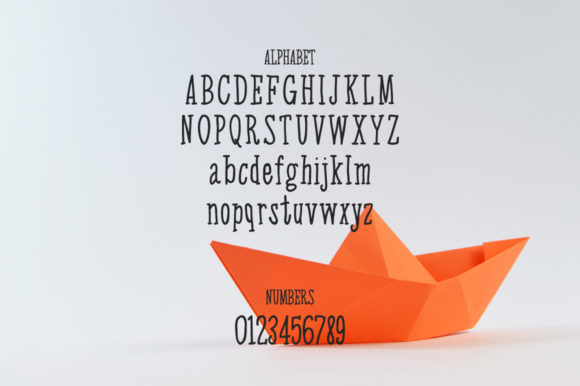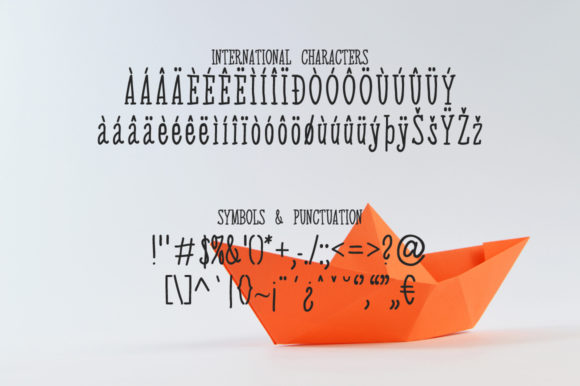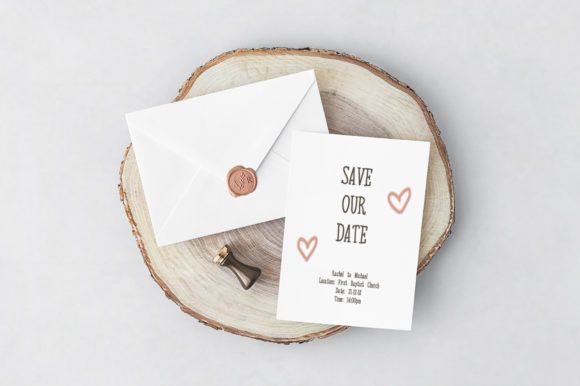
The Perfect Touch of Hand-Lettered Elegance
There’s nothing quite like the feeling of scribbling down an idea on a napkin or sketching out a rough design in a notebook. It’s a moment of pure creativity, where the lines between inspiration and execution blur. And it’s precisely this kind of freedom that the Arkitivity Font embodies.
This beautiful set of fonts, including regular, bold, and outlined styles, brings a hand-lettered serif touch to any design project. Whether you’re crafting a business card, designing a wedding invitation, or building a brand identity, Arkitivity Font is the perfect companion for your creative endeavors. Its versatility and charm make it a valuable addition to any designer’s toolkit.
Arkitivity Font Key Features
- Font Family: Arkitivity Font offers a unique set of 4 styles, including Regular, Bold, Italic, and Bold Italic, providing versatility for various design applications.
- Unique Characteristics: The font’s unique blend of modern and industrial elements, combined with its clean and minimalist aesthetic, makes it an ideal choice for designs requiring a touch of sophistication and edginess.
Arkitivity Font Review
Overall, I was impressed by the Arkitivity Font’s unique aesthetic and versatility. ✨ Its bold lines and playful feel make it perfect for titles, headings, and any design that needs a touch of modernity. The font also comes with a range of weights, allowing designers to create visually appealing contrast and balance.
The font is ideal for projects that require a mix of sophistication and playfulness, such as branding, advertising, and digital products. ✨ Its versatility makes it suitable for various industries, from tech to fashion.
- Unique aesthetic and design
- Playful and modern feel
- Range of weights for contrast and balance
- Versatile and suitable for various industries
- Some characters may not be suitable for formal or professional designs
- The font may be too playful for some industries, such as finance or law
- May not be ideal for long blocks of text
- May require additional styling to achieve desired effects
Overall, the Arkitivity Font is a great addition to any designer’s toolkit, offering a unique and versatile solution for a wide range of design projects. While it may have some limitations, its strengths far outweigh its weaknesses, making it a valuable asset for any designer looking to add some personality to their work.
Tips for Getting the Most Out of Arkitivity Font
For best results, use Arkitivity Font in bold or italic styles to emphasize text. Experiment with different font sizes and combinations to achieve the desired visual effect. Arkitivity Font works well in modern and creative designs, making it perfect for branding and marketing materials.
Arkitivity Font is ideal for use in branding and marketing materials, such as logos, business cards, and brochures. It’s also suitable for use in digital media, including websites, social media, and presentations.